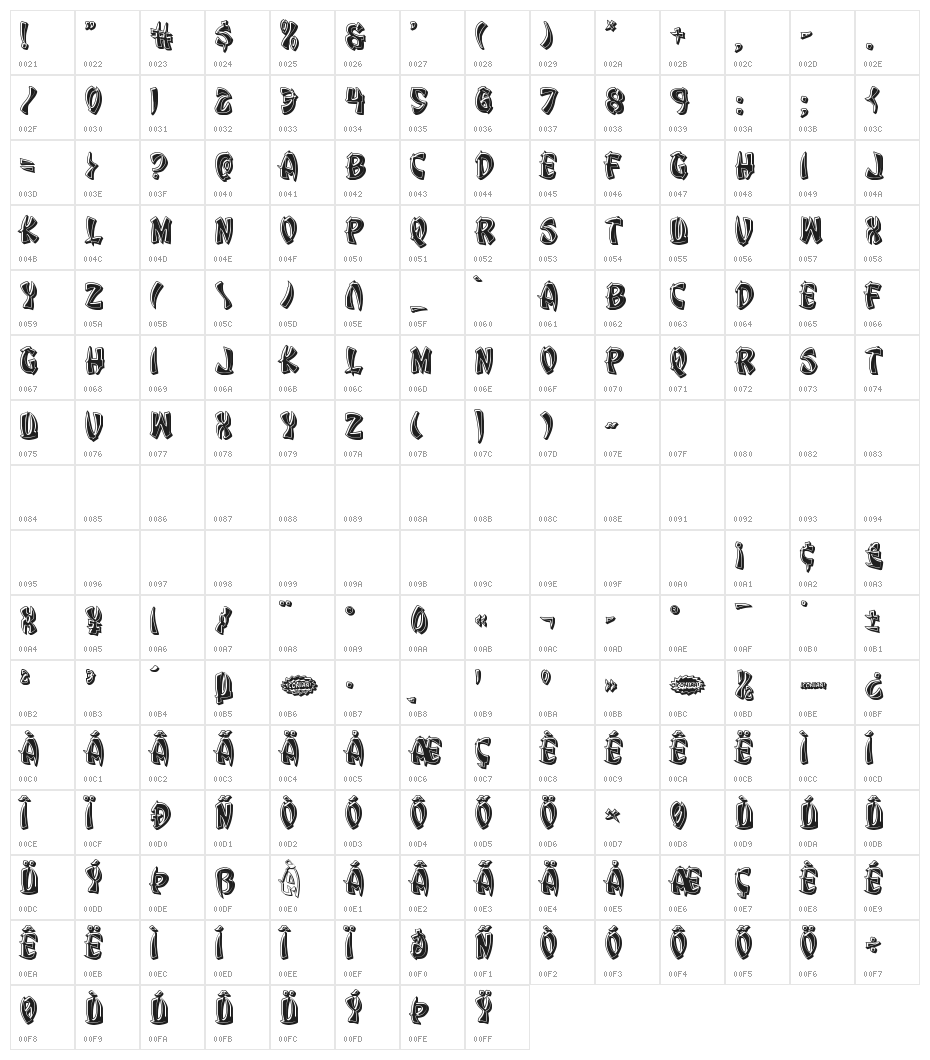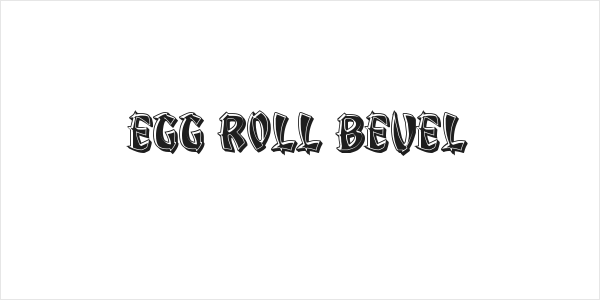
Egg Roll Bevel Font
Egg Roll Bevel Description
This font features a bold, dynamic style with a three-dimensional beveled effect that gives each character a striking, shadowed appearance. The letters are uppercase and lowercase, with a playful, graffiti-like aesthetic that makes them stand out. The numbers and special characters maintain this bold, artistic flair, ensuring consistency across the font. The thick strokes and sharp angles contribute to its eye-catching design, making it ideal for projects that require a strong visual impact.
| Proposed Projects | Perfect for street art designs, music album covers, event posters, and urban-themed branding. |